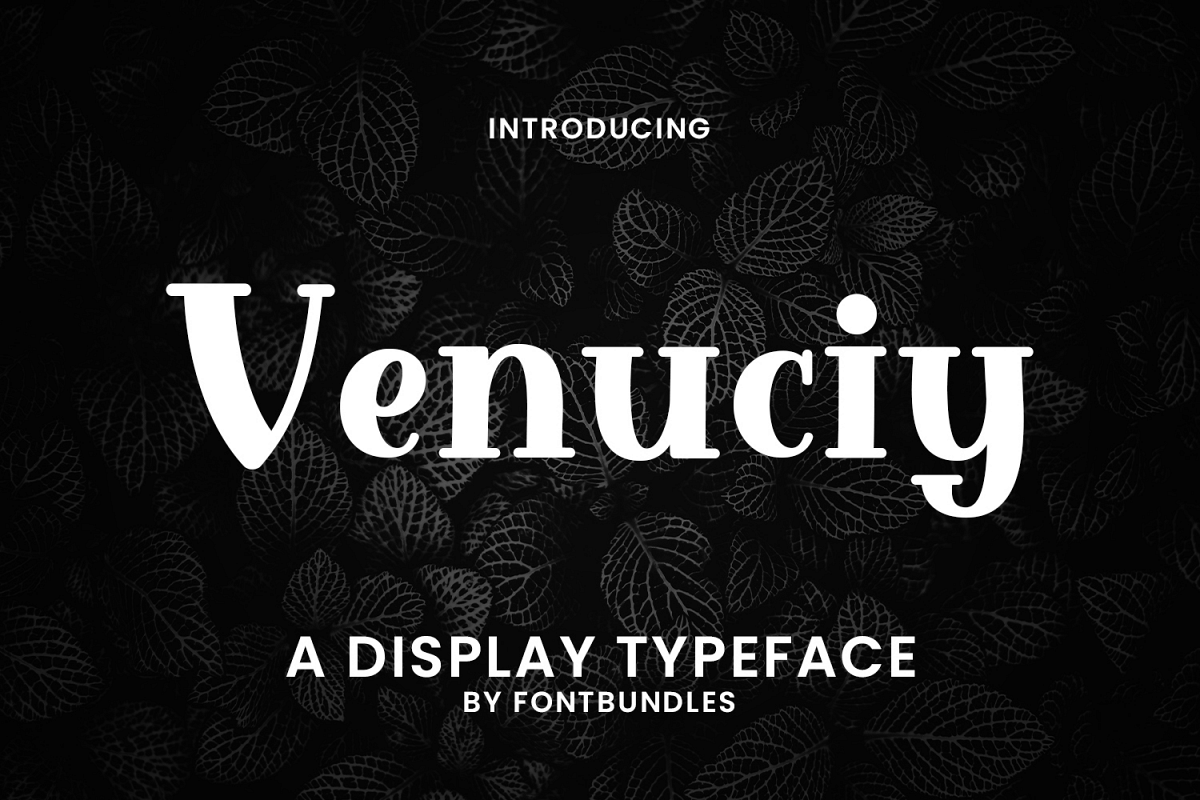
Venuciy is a display typeface. Perfect for logo, badges, business card, name card, tittle, headline, packaging, branding, merchandise, quote and many more.